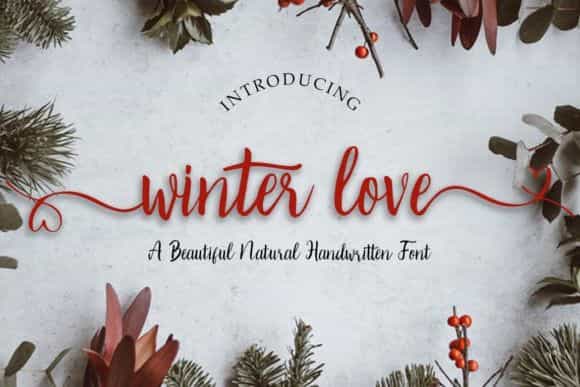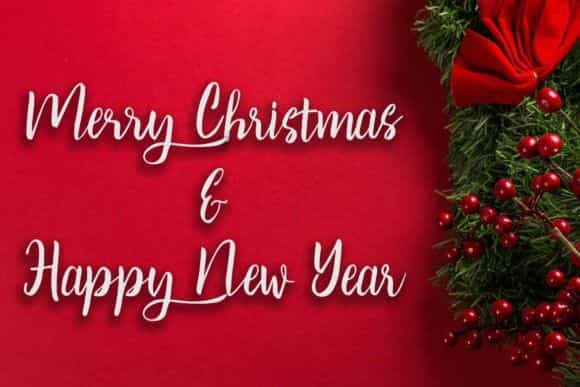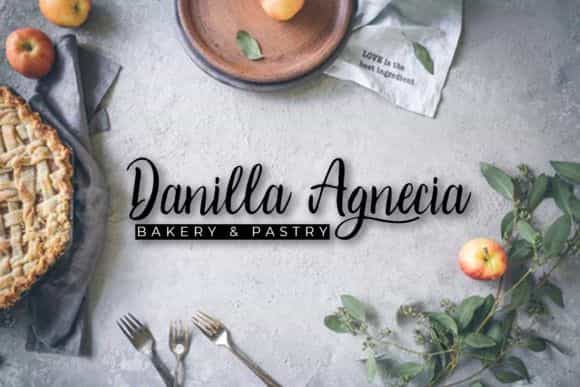
Winter Love Font is a new font, fresh, modern, script with the handmade calligraphy, the decorative characters, the dancing baseline! In its beautiful form, it can be used in invitation such as greeting cards, branding, business cards, quotes, posters, and many more!